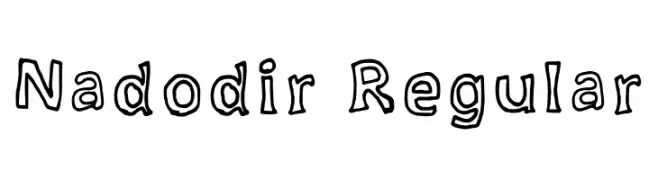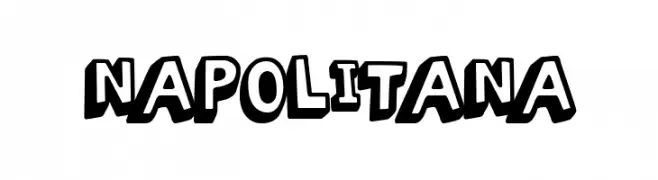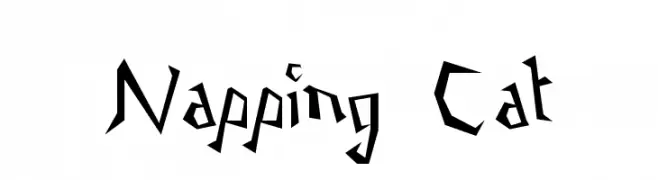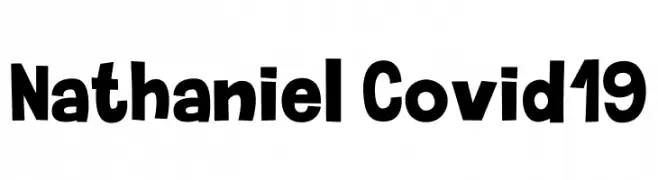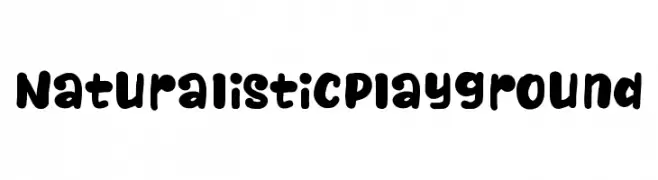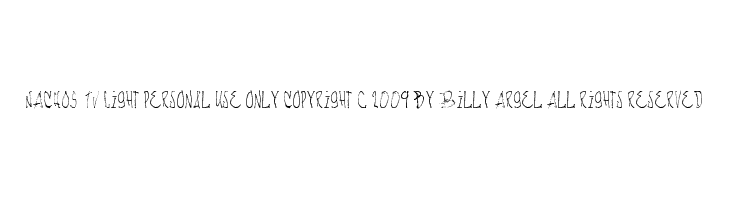
A hand-drawn, textured font with an artistic, graffiti-like style.
A playful, hand-drawn font with bold, irregular outlines.
A bold, playful font with rounded, bubbly characters and a whimsical style.
A bold, playful font with a cartoonish, hand-drawn style.
A bold, angular font with a geometric and energetic style.
A playful, hand-drawn font with exaggerated, uneven strokes and a whimsical flair.
A bold, playful, hand-drawn font with a whimsical charm.
A playful, bold font with rounded, organic shapes and a hand-drawn feel.
A quirky, hand-drawn font with irregular, angular shapes and dynamic strokes.